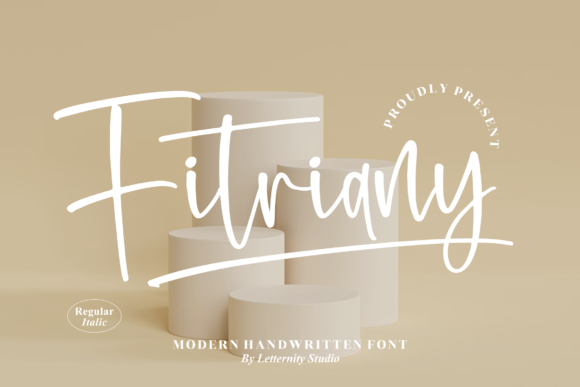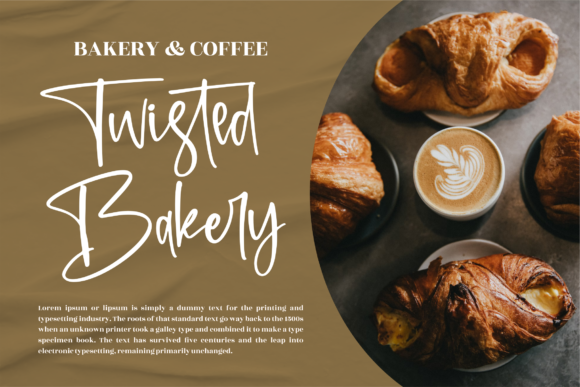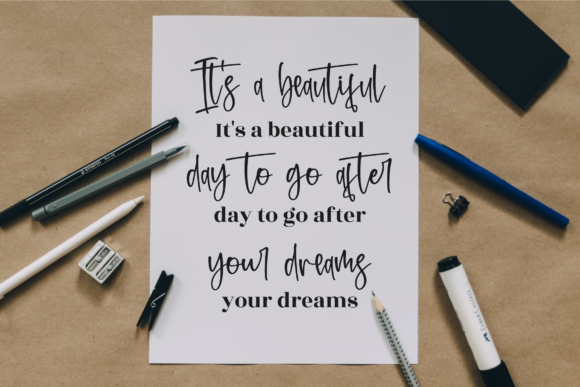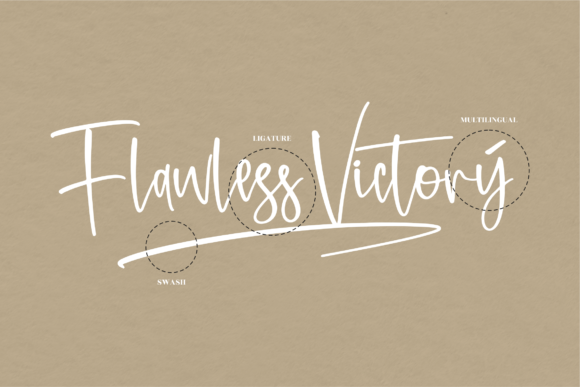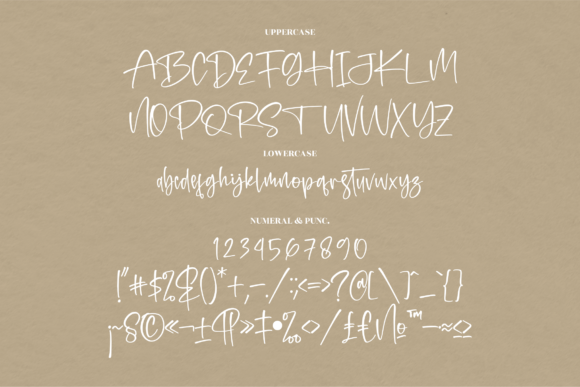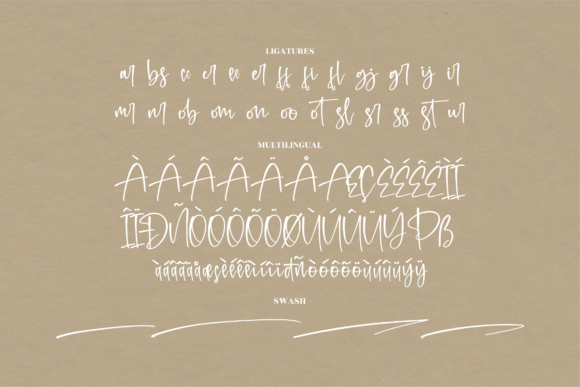
About Fitriany Font
Fitriany is a sweet and cursive handwritten font. This gentle font will look gorgeous on a variety of design ideas. This font is PUA encoded which means you can access all of the glyphs and swashes with ease!Â